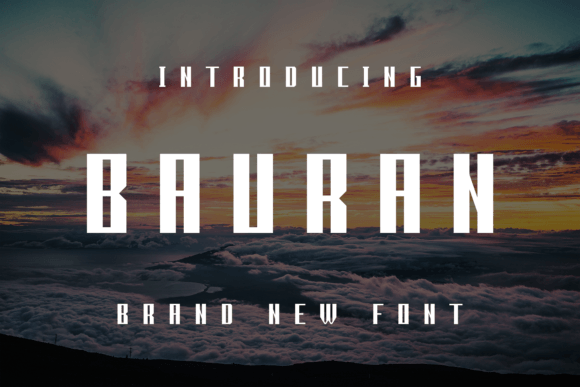
Introducing Bauran Font, a typographic marvel that embodies boldness and elegance. Designed by the skilled hands of lelevien, this display font stands out as a true masterpiece in the world of typography.
Bauran Font's captivating presence commands attention with its clean lines and striking curves. Each character is meticulously crafted to exude a sense of sophistication and luxury, making it the perfect choice for designers seeking to create truly exceptional visual experiences.
With its versatility, Bauran Font effortlessly adapts to a wide range of projects. Whether you're working on branding, logos, posters, or any other design endeavor, this font is guaranteed to elevate your creations to new heights. Its ability to seamlessly blend with various styles and concepts makes it an indispensable tool in the arsenal of any creative professional.
Bauran Font's intuitive design invites you on a journey of self-expression. Unleash your creativity and let your imagination run wild as you combine different weights, styles, and colors to achieve the perfect aesthetic. Whether you prefer a minimalist approach or a more elaborate design, Bauran Font empowers you to bring your vision to life.
Join the ranks of discerning designers who have discovered the transformative power of Bauran Font. Its timeless appeal and endless possibilities make it an essential addition to any font collection. Embrace the beauty of typography and elevate your designs with this remarkable creation.
Embrace the allure of Bauran Font, a typographic masterpiece that ignites creativity and leaves a lasting impression. Its bold presence and captivating curves will transform your designs into works of art, leaving your audience in awe.